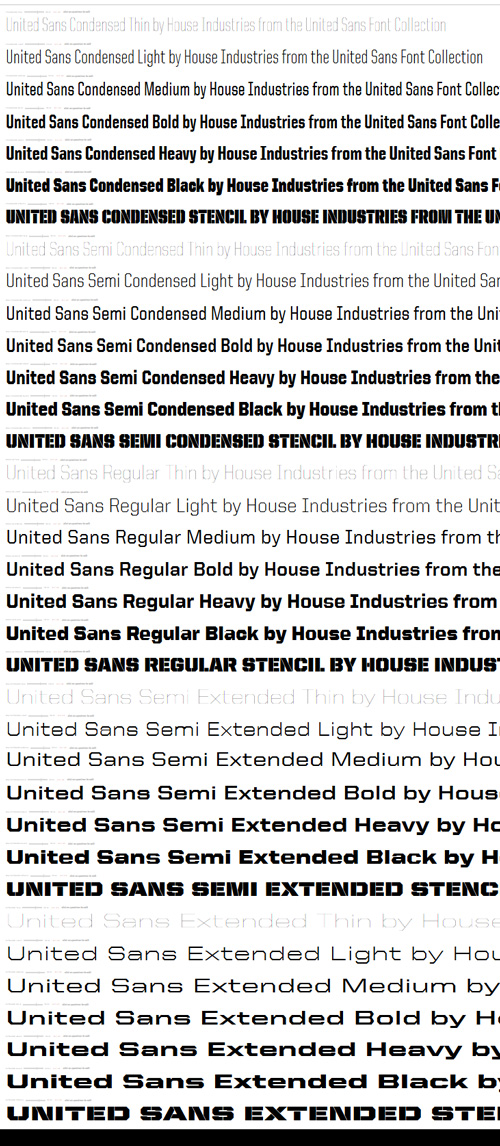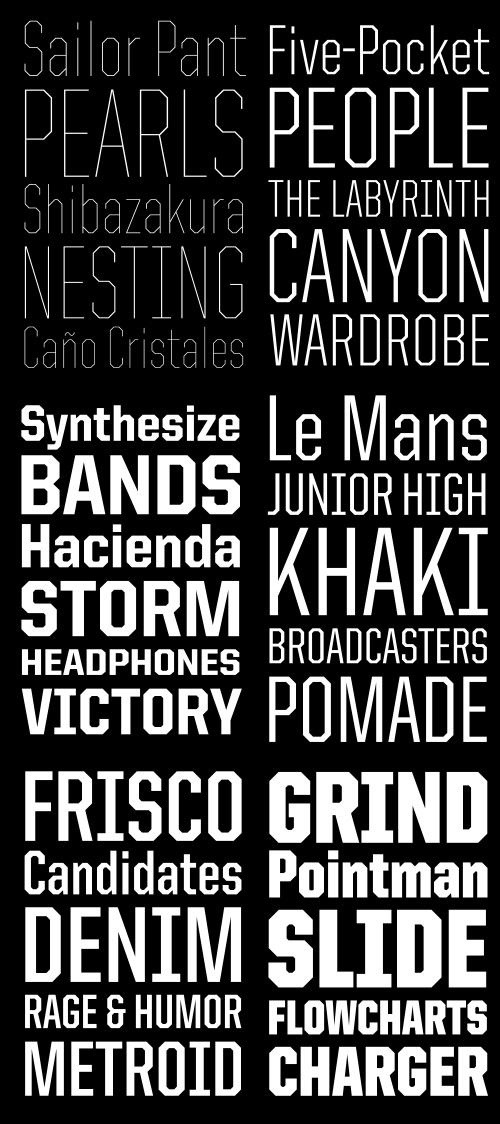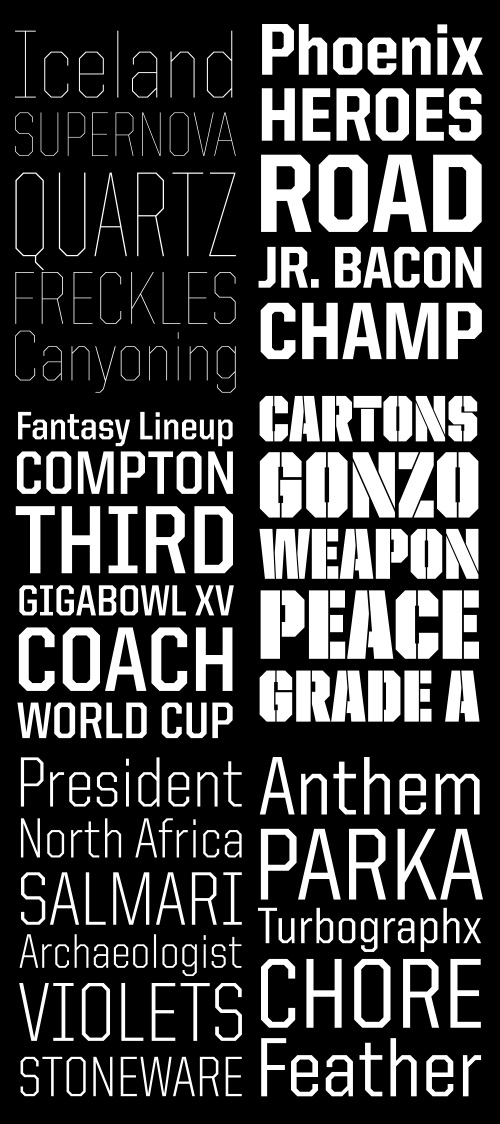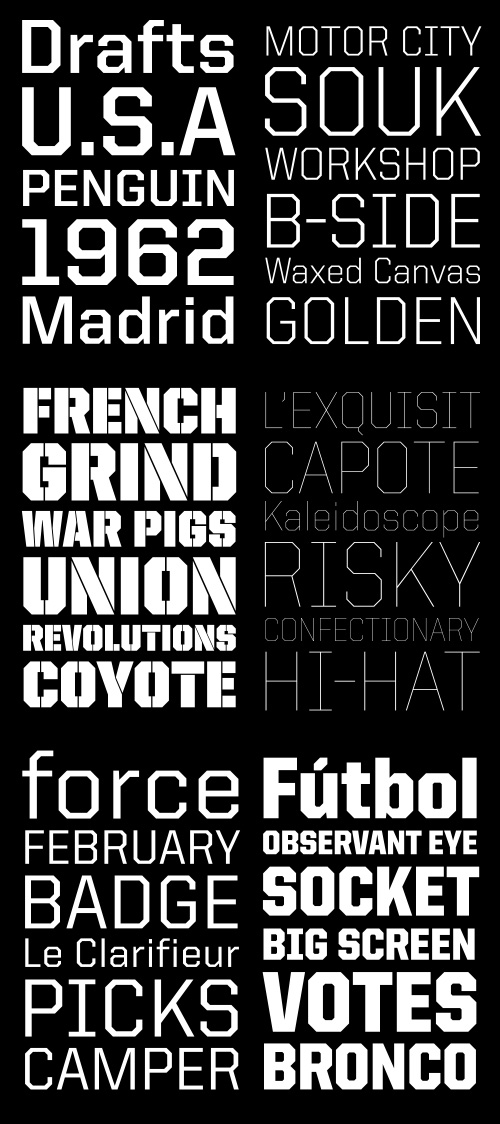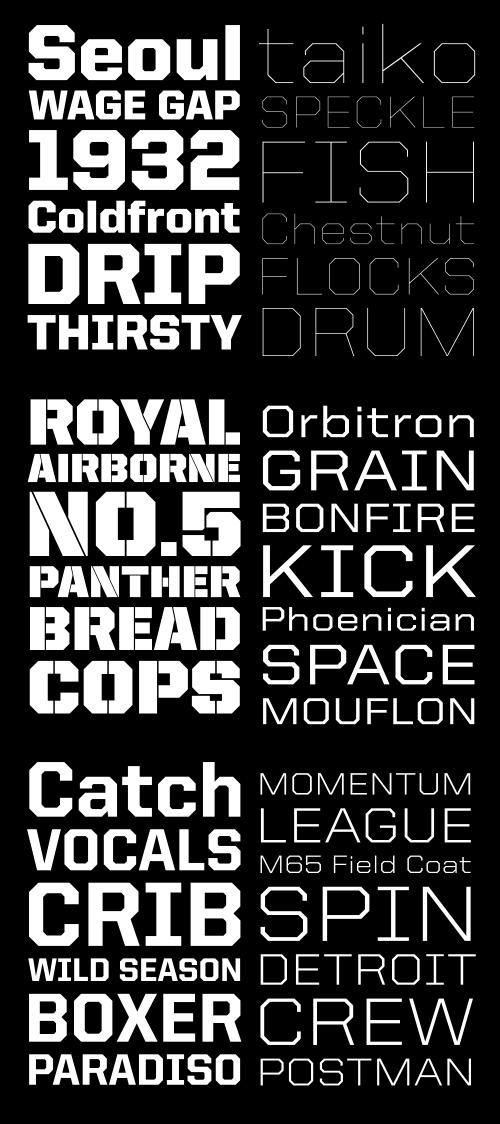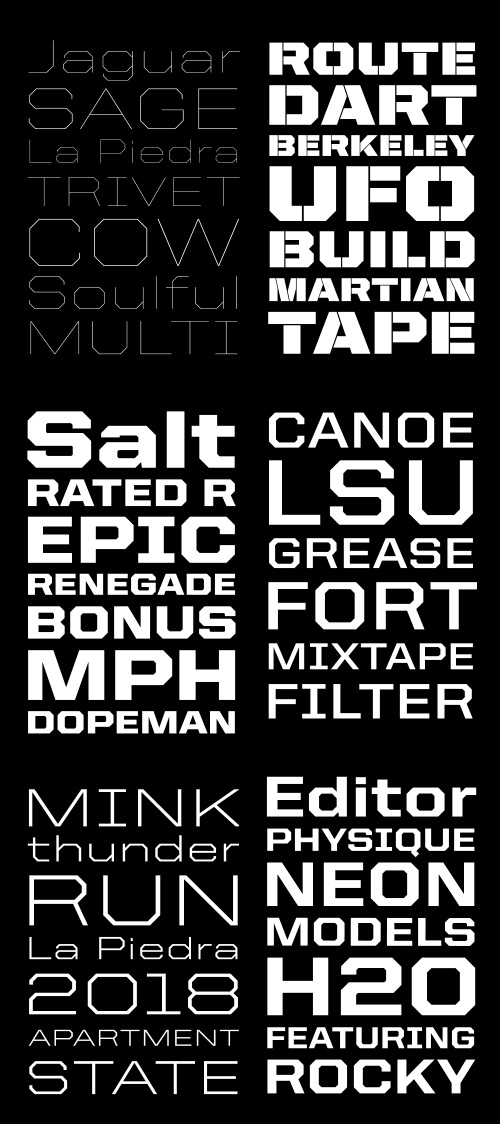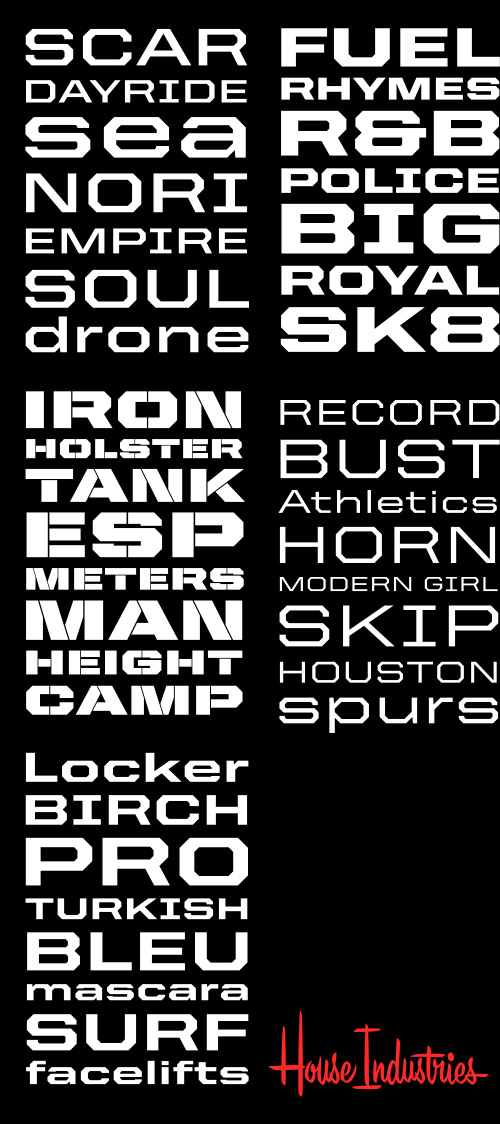
United Sans Typeface by Housefonts
- Like most military actions, United started out as a simple typographical incursion that became entrenched in the House Industries quagmire of creative projects. After we used early versions in a clothing company logo, the family drew national attention as it was selected to appear in the Smithsonian’s Cooper-Hewitt National Design Museum 2003 Triennial show. Tal Leming toiled for the next three years to build on the original concept and develop one of the most extensive font families available anywhere. United boasts three different styles, each with seven weights and five widths for a total of 105 fonts for the entire collection.